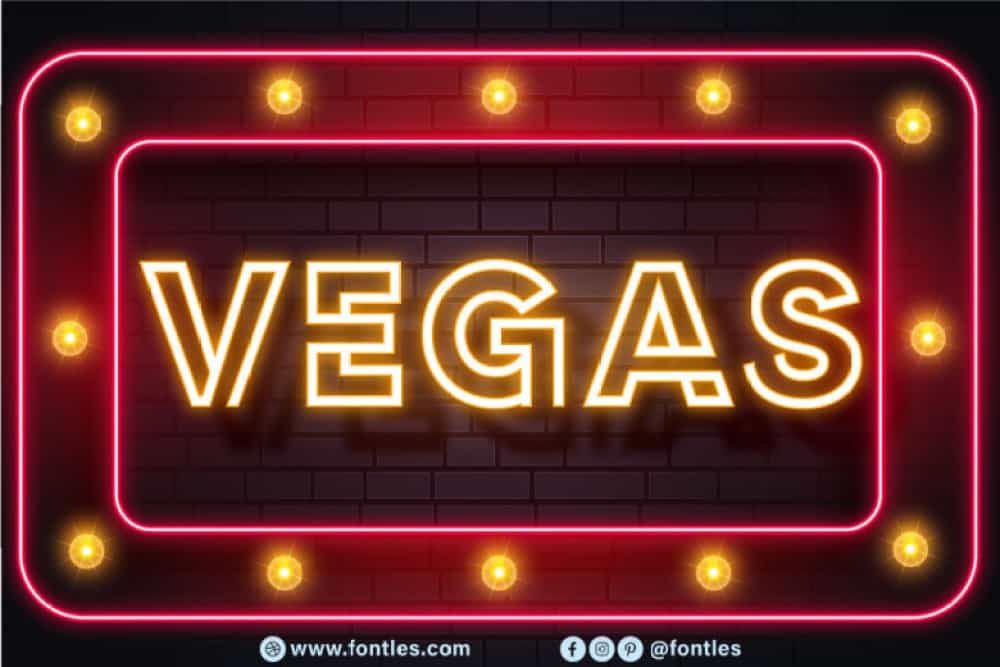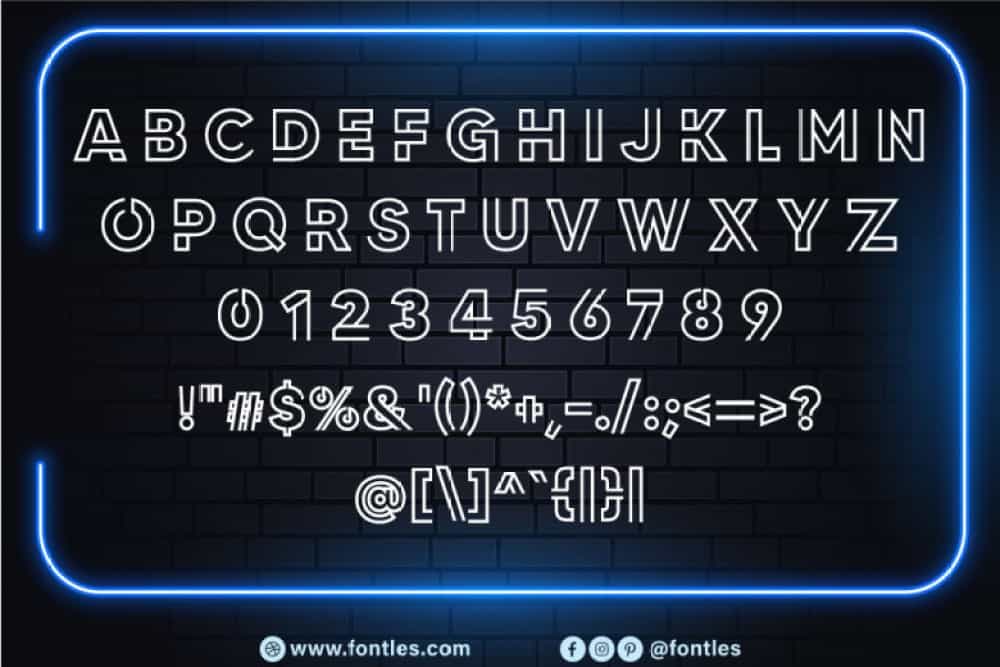
Discover Neon Led Light Font, part of the Display Retro collection—a versatile and unique font perfect for adding a personal touch to your projects. Download it for free and enjoy crafting designs with style, from invitations to social media posts. This font is available exclusively for personal use, giving you the freedom to create without limits. Unlock your creativity with Neon Led Light Font today!
Neon Led Light Font can be used in display purposes as this is quite attractive to the eyes. Suitable for store logo, quote, a title for movies or magazines or product packaging design as it gives an energetic feel to any design like store branding or product label design!